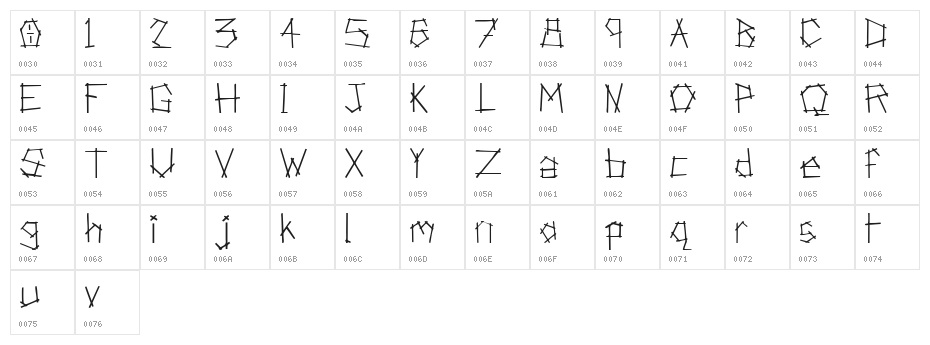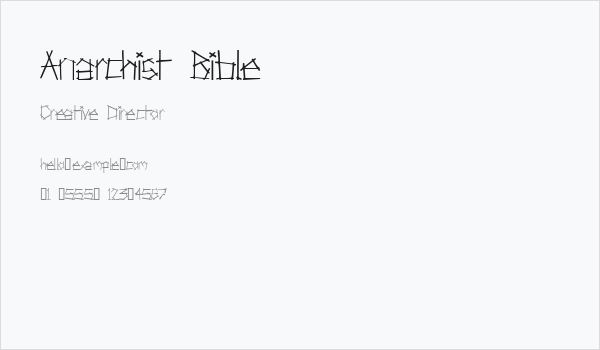
Anarchist Bible Font
Anarchist Bible Description
This font features a unique, edgy design that resembles hand-drawn lines with a rebellious flair. Each character is constructed with a series of straight lines and angular connections, giving it a raw, unfinished look. The uppercase and lowercase letters maintain a consistent style, with some characters featuring additional embellishments like dots or crosses. Numbers and special characters follow the same aesthetic, ensuring a cohesive appearance across all glyphs. The font's irregularity and bold strokes make it stand out, perfect for projects that require a touch of anarchy or unconventional style.
| Overall Style | Rebellious, Edgy, Unconventional |
| Use Case | Headlines, Posters, Branding |
| Proposed Projects | Ideal for punk rock album covers, protest posters, edgy branding, or any project needing a bold, unconventional typeface. |